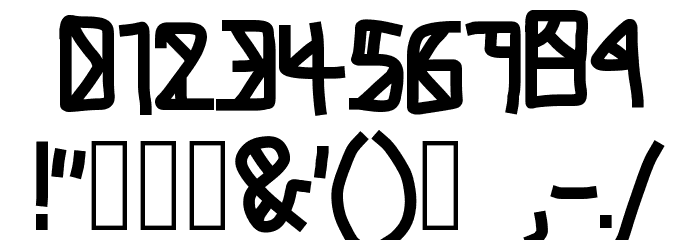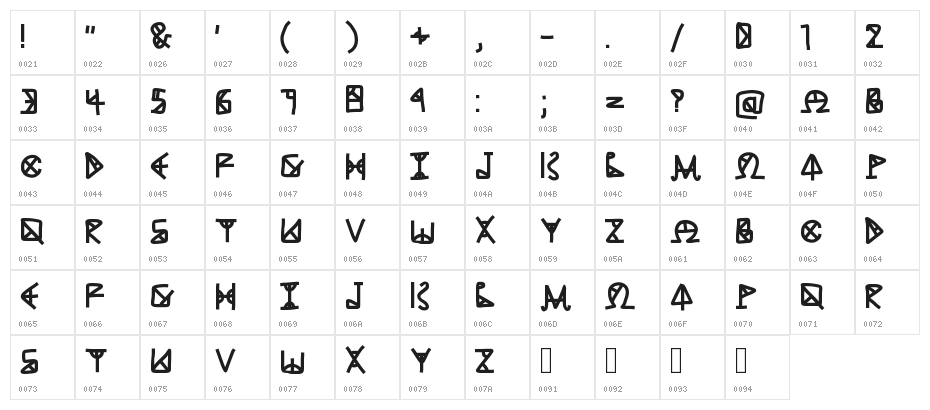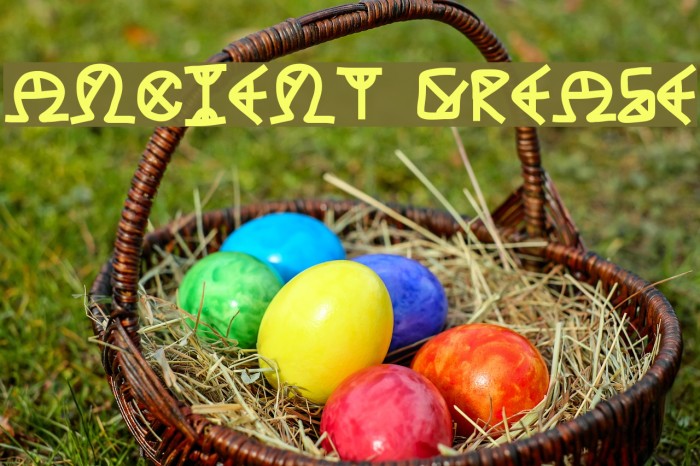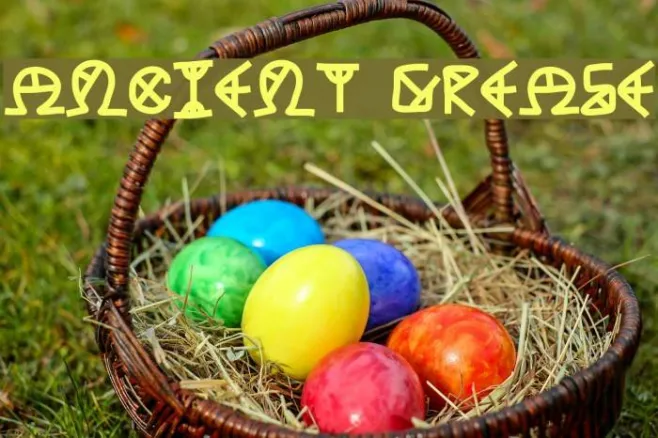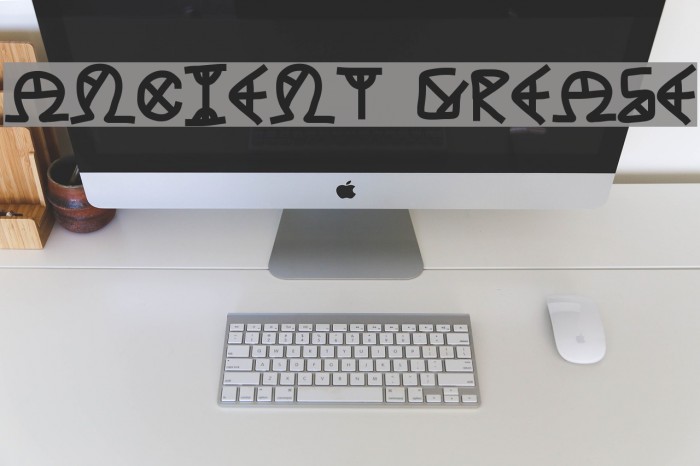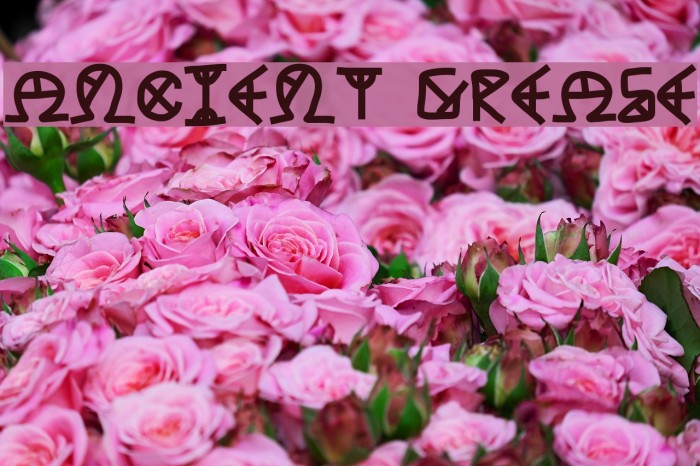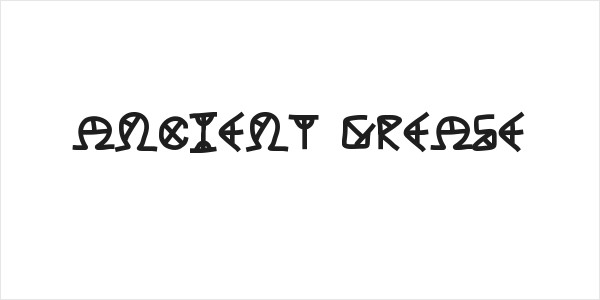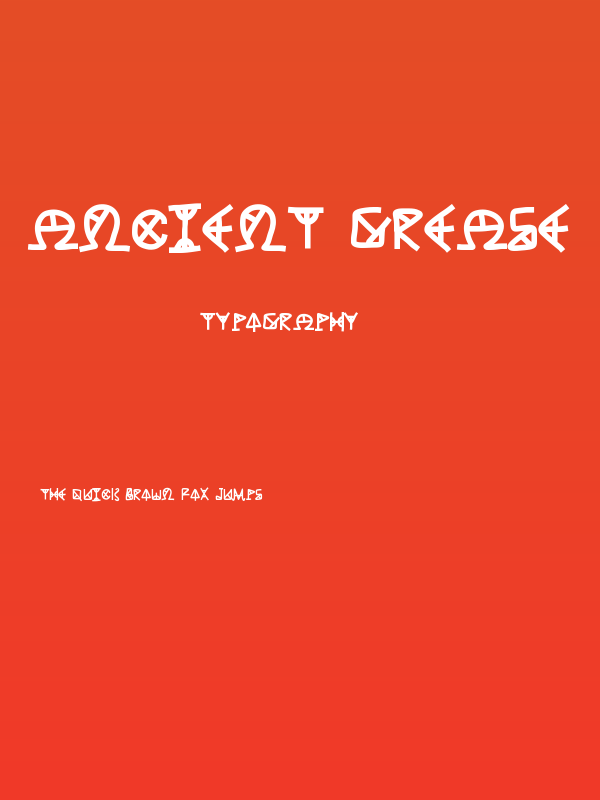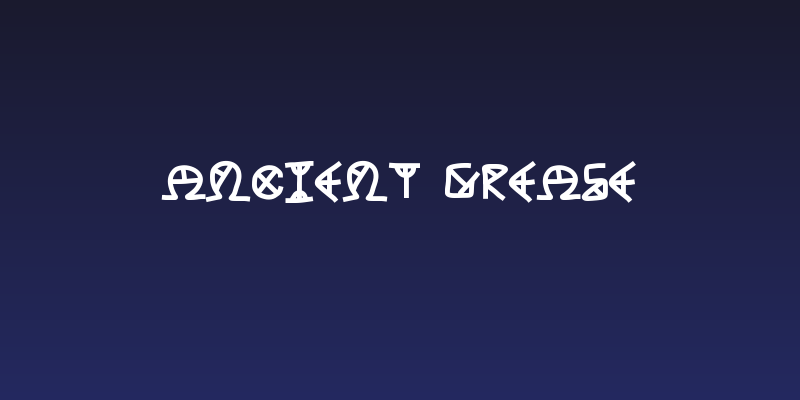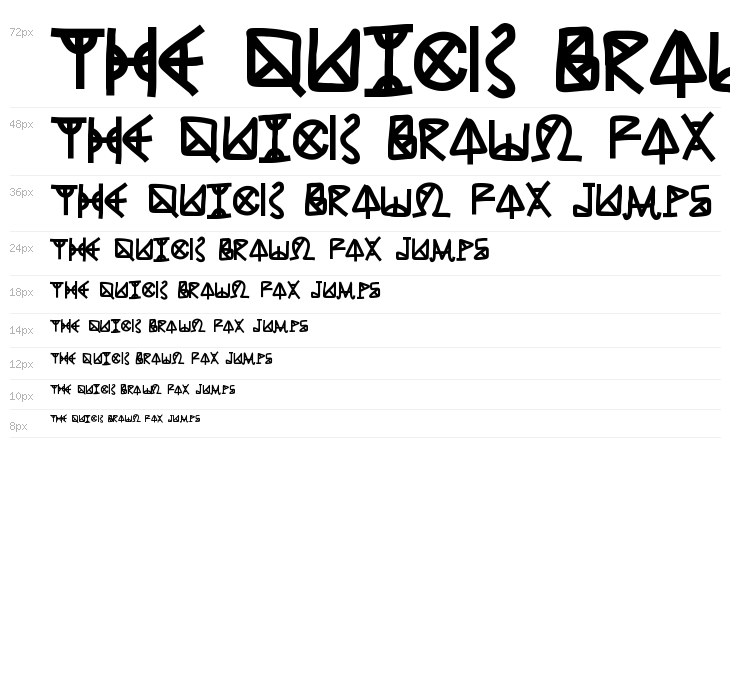
ANCIENT GREASE Font
ANCIENT GREASE Description
This font exhibits a unique, ancient-inspired design with bold, geometric shapes and intricate detailing. The characters are reminiscent of historical scripts, featuring angular lines and decorative elements that evoke a sense of antiquity. The uppercase letters are particularly striking, with each character having a distinct personality, while the lowercase letters maintain a consistent style. Numbers and special characters follow the same thematic design, ensuring a cohesive look across all text. The overall appearance is both artistic and functional, making it suitable for projects that require a touch of historical or cultural depth.
| Proposed Projects | Ideal for historical-themed designs, cultural event posters, museum exhibits, or educational materials that focus on ancient civilizations. |